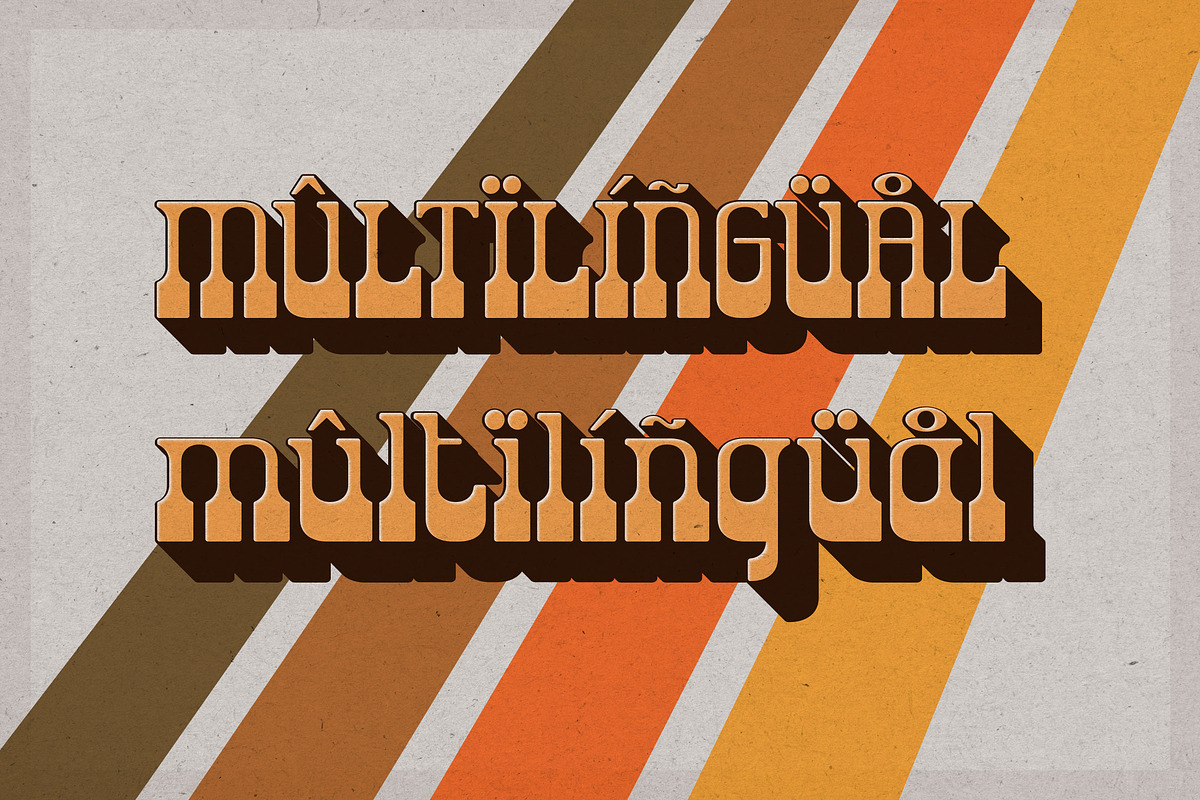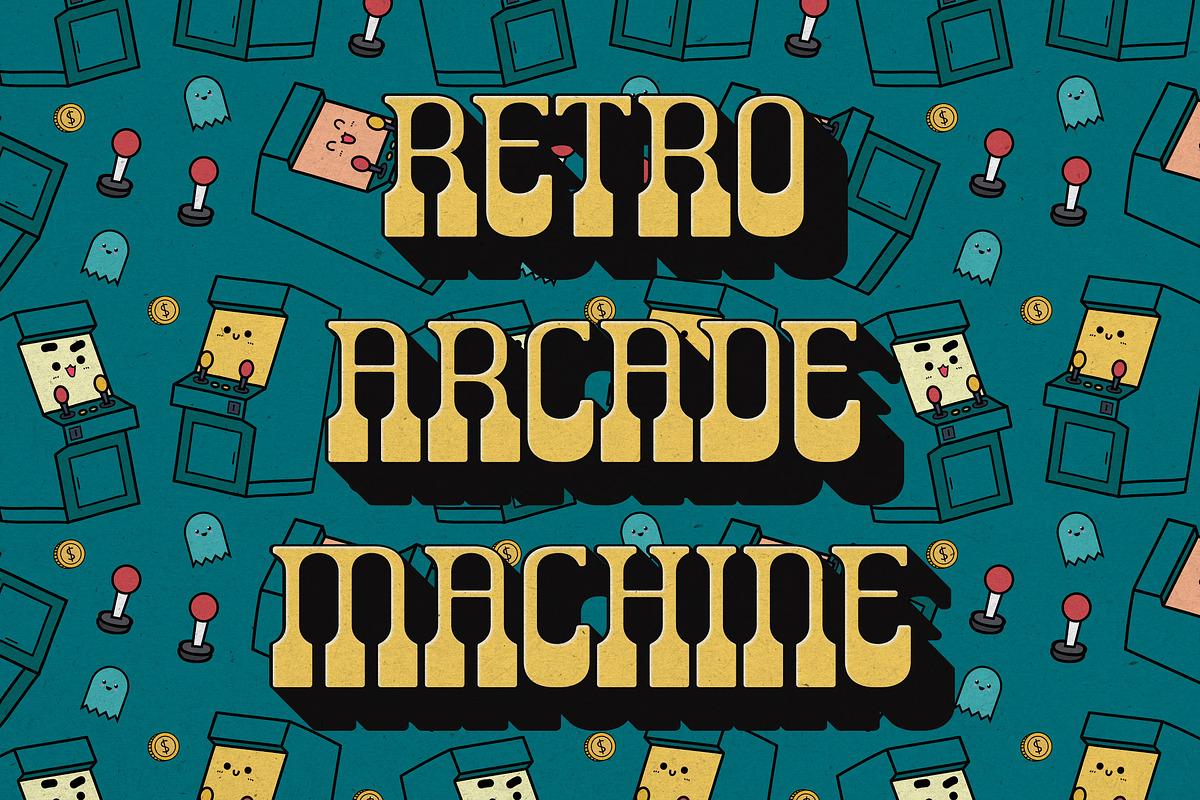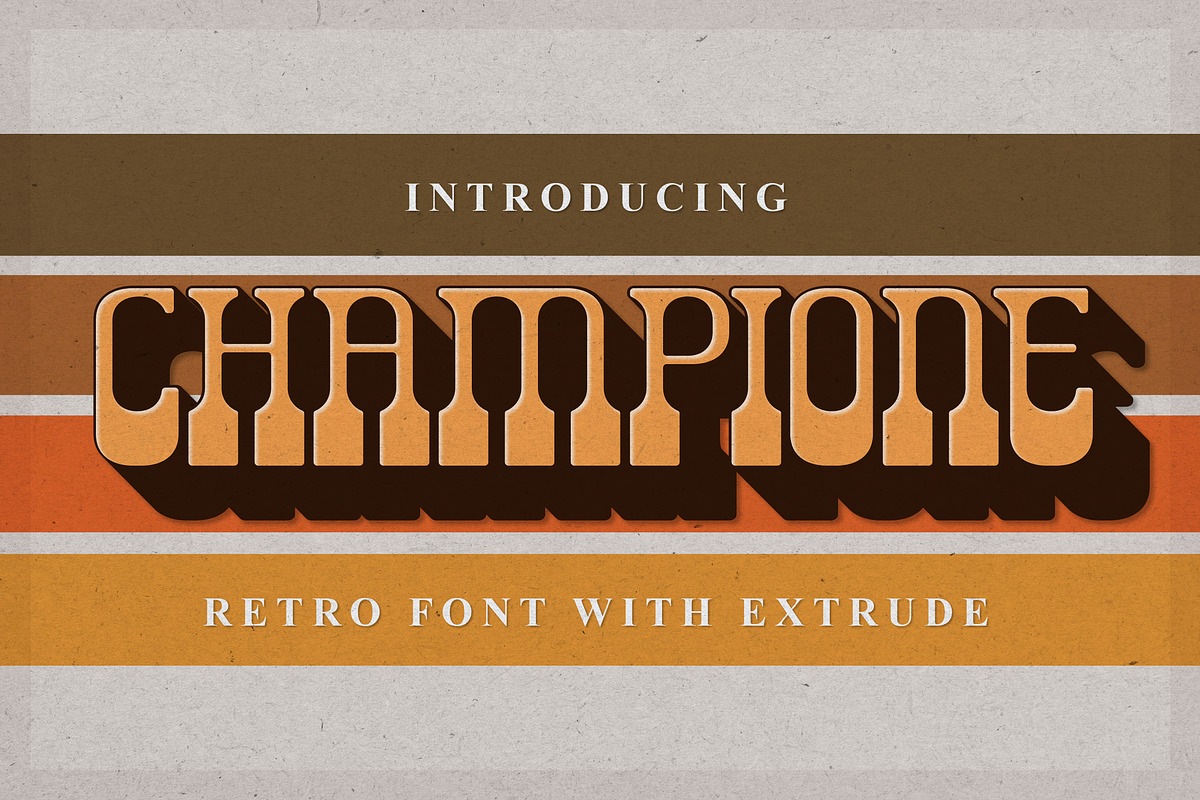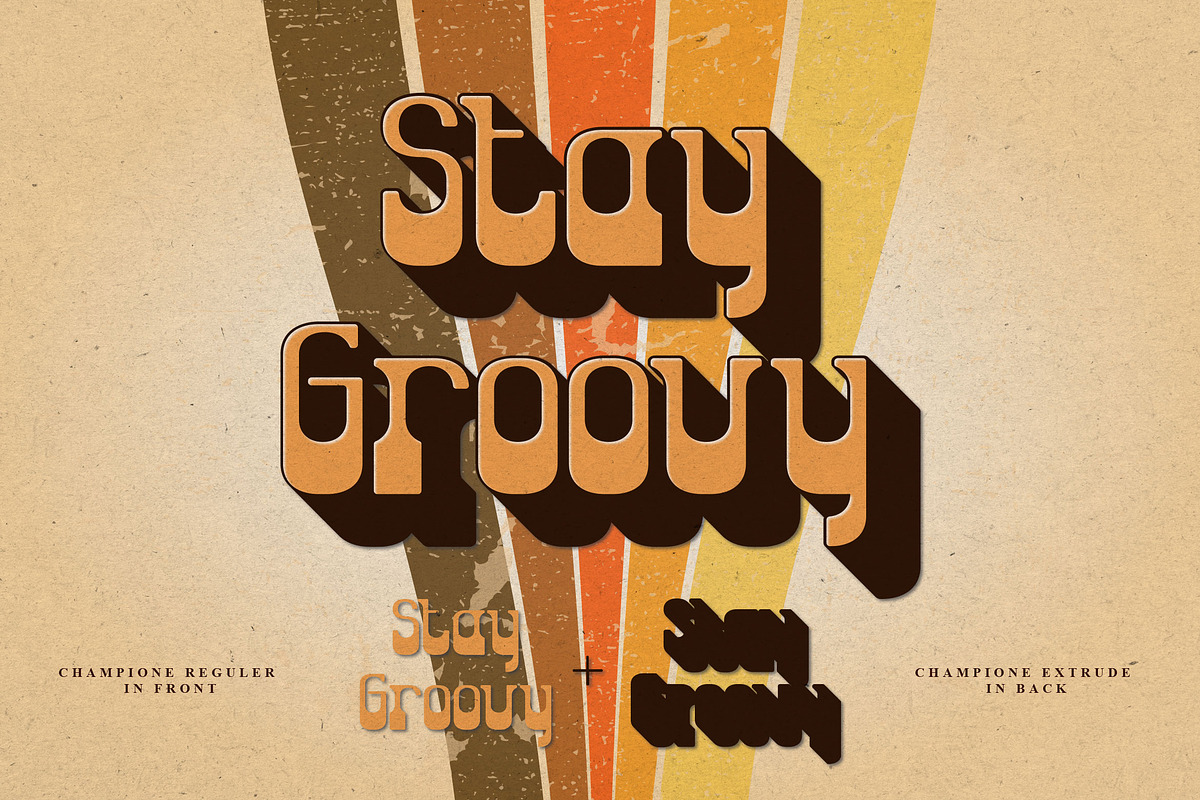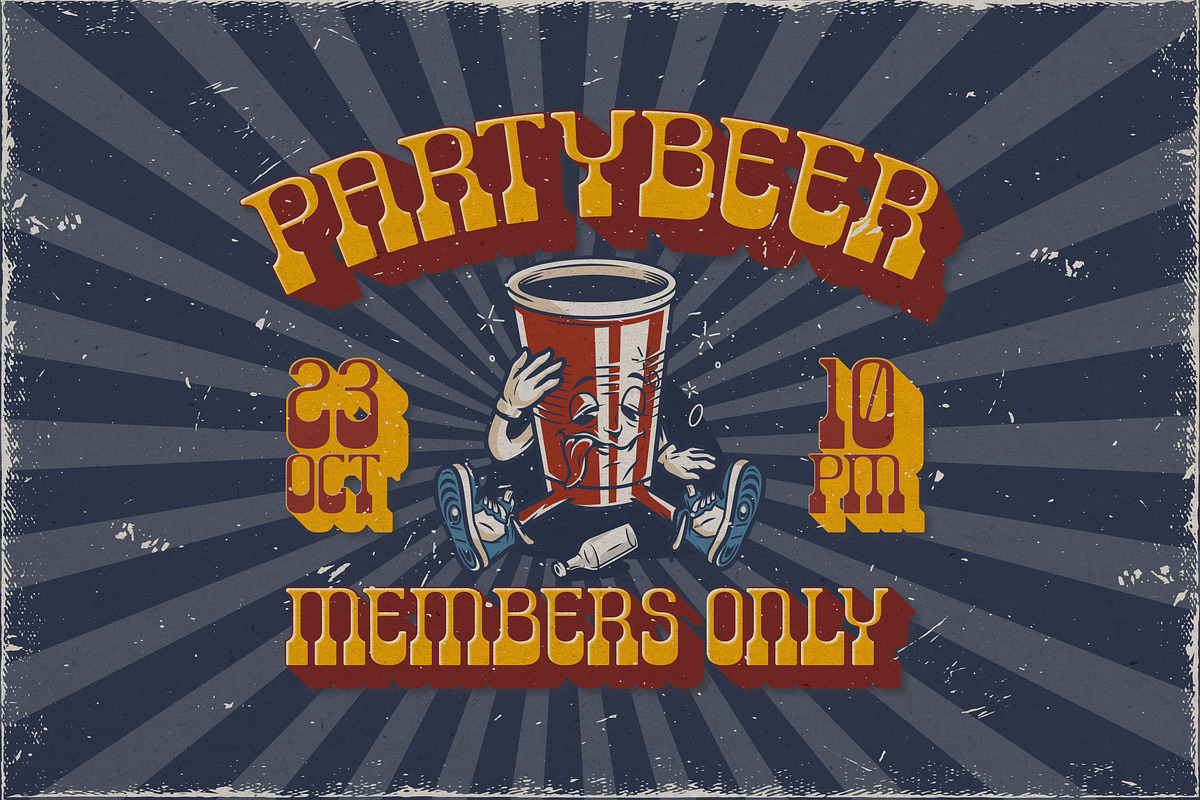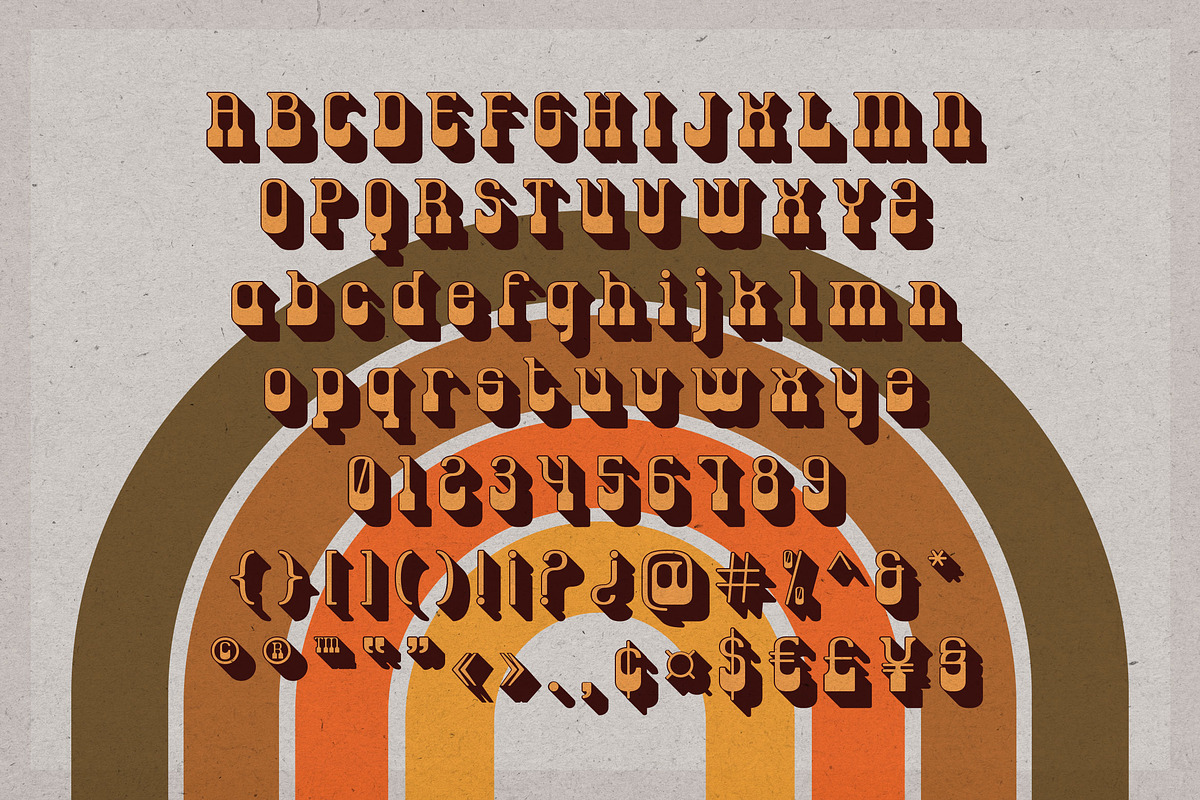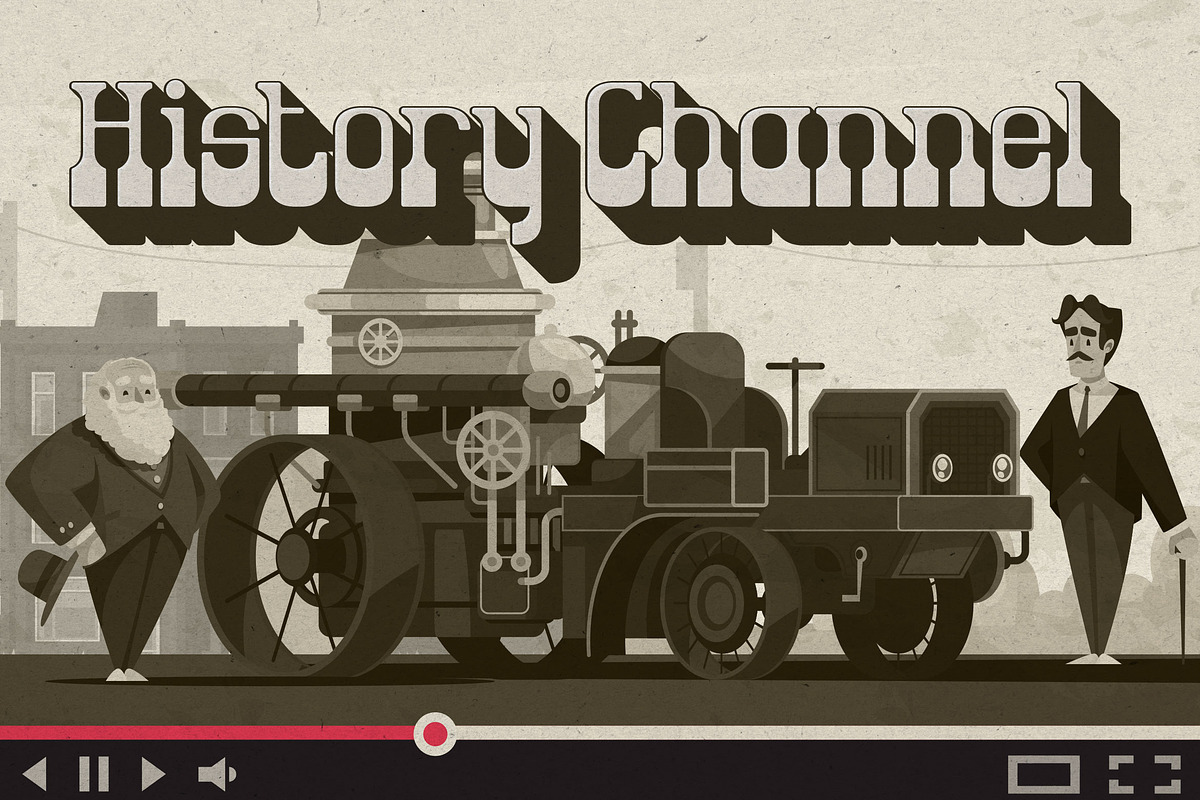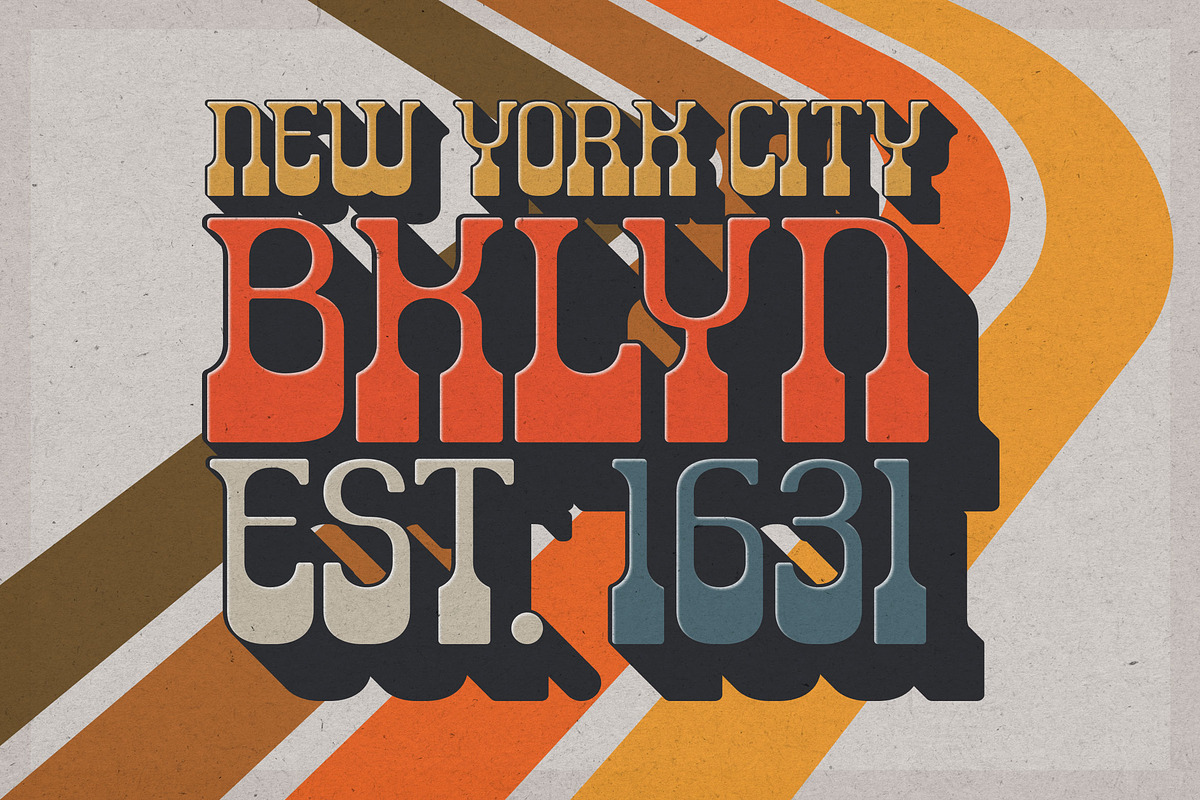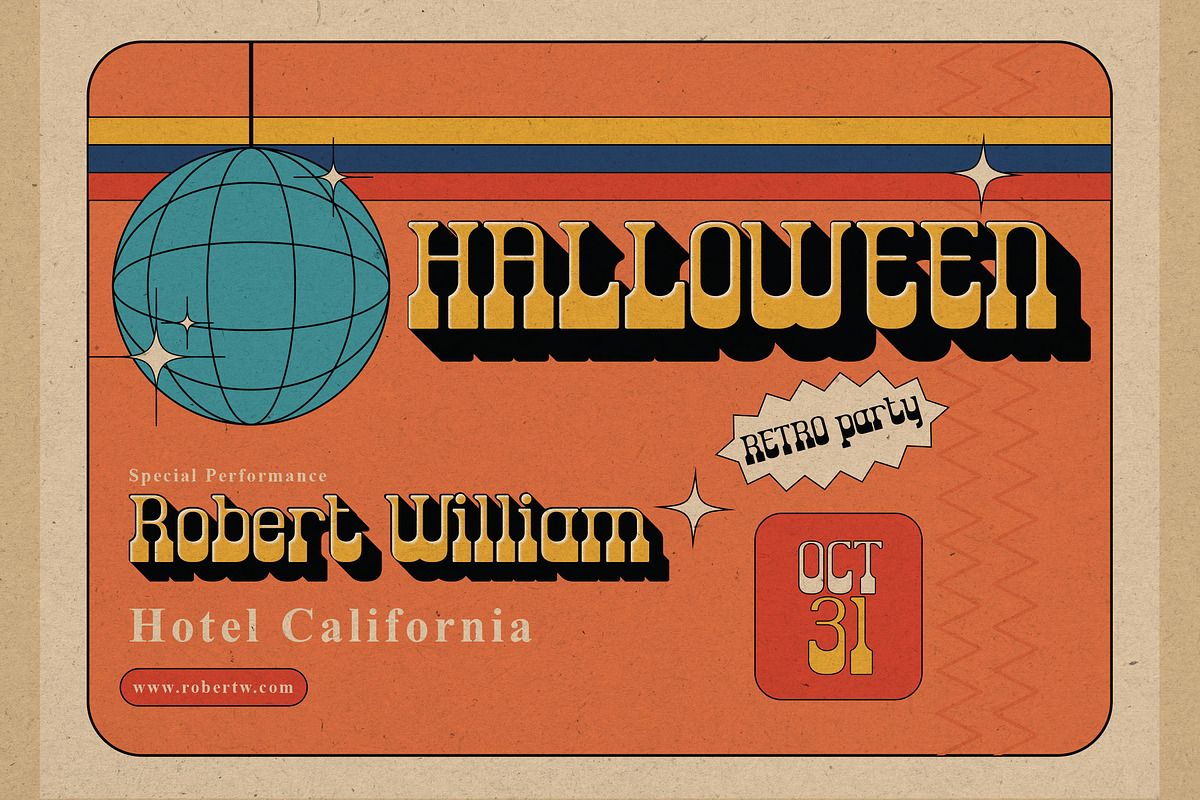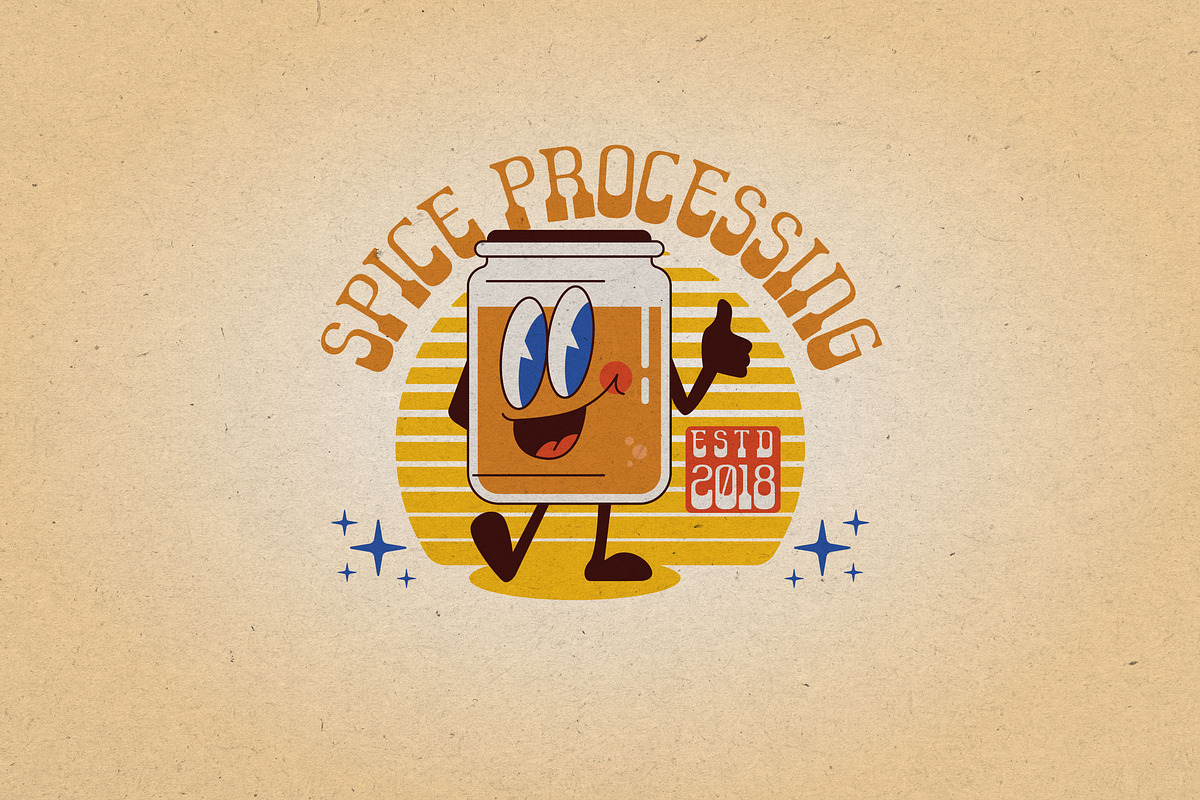
Champione | Retro Font with Extrude
Introducing Champione a retro font which will bring yo back to 80s feel. comes with Extrude versions. So you don't need extra effort to create extrude effects. Perfect for editorial projects, Logo design, Clothing Branding, product packaging, magazine headers, or simply as a stylish text overlay to any background image.